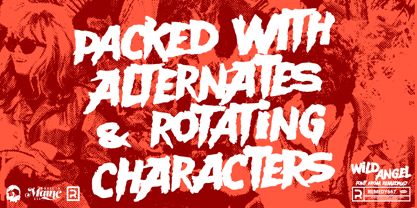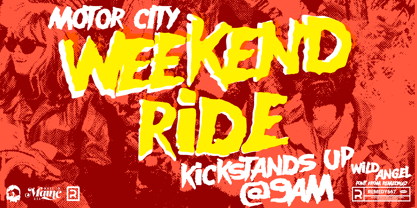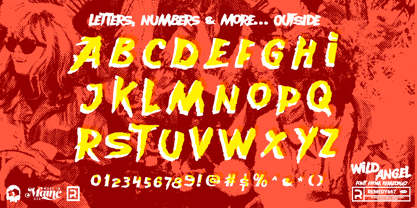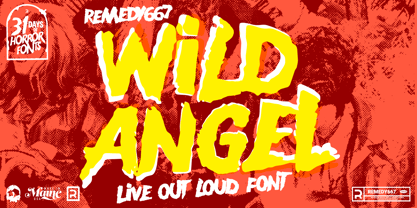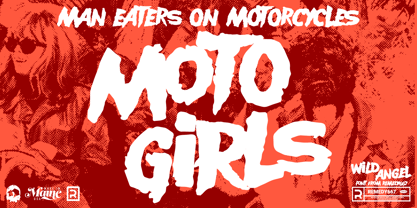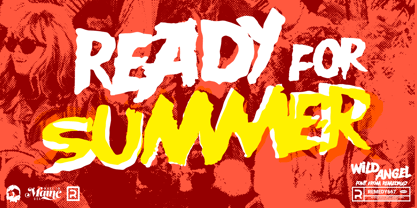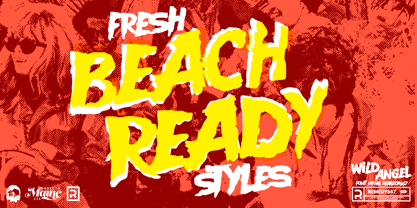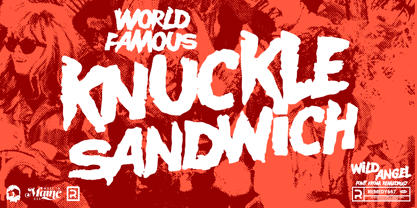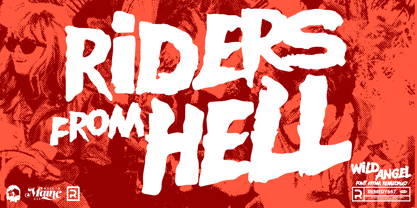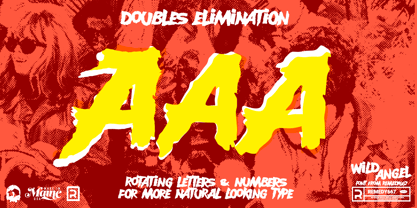
Wild Angel 667
Rev your engines, Wild Angel tears down the highway straight from the screens of 1960s and 70s biker films. Bringing with it the rebellious spirit of roaring motorcycles, pulp magazines, and sun-baked Americana. The bold letterforms of Wild Angel will grab your audience’s attention so fast, they’ll leave tire marks.
Perfect for hot rod graphics, biker-inspired branding, and summertime promotions. Wild Angel blends classic pulp energy with expressive readability. Its rotating characters keep your text feeling natural and hand-crafted. Make every headline look brash and bold like a speeding chopper, with Wild Angel.
Features
• Inspired by the trailer lettering of The Wild Angels (1966)
• Perfect for hot rod, motorcycle, and vintage Americana projects
• Rotating characters for natural, hand-crafted variation
• Multilingual support for worldwide cruising